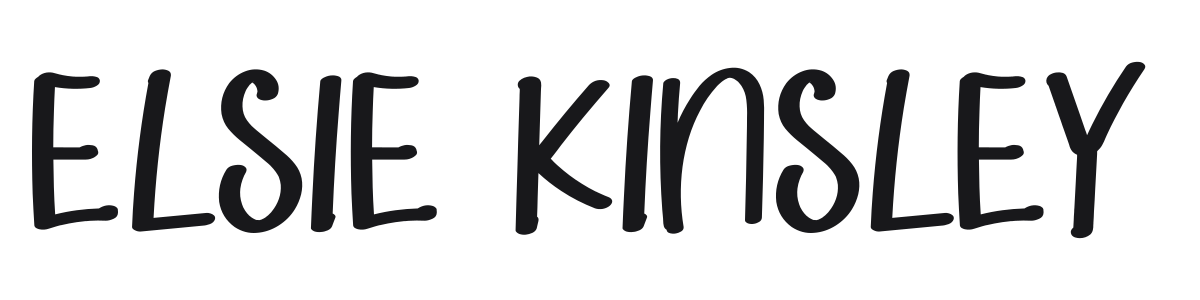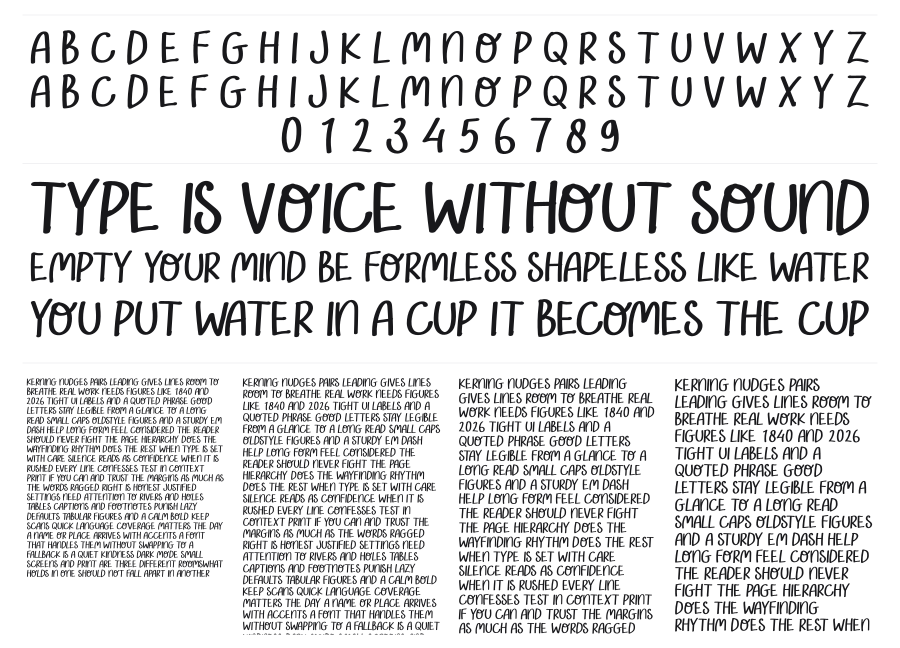
Elsie Kinsley
Elsie Kinsley is a casual upright script with a warm, hand-lettered personality and rounded terminals that keep it feeling approachable. The slightly bouncy rhythm and informal construction give it an everyday handwritten quality without veering into formal calligraphy. It works well on packaging, social media graphics, and anywhere a friendly, personal touch is needed.